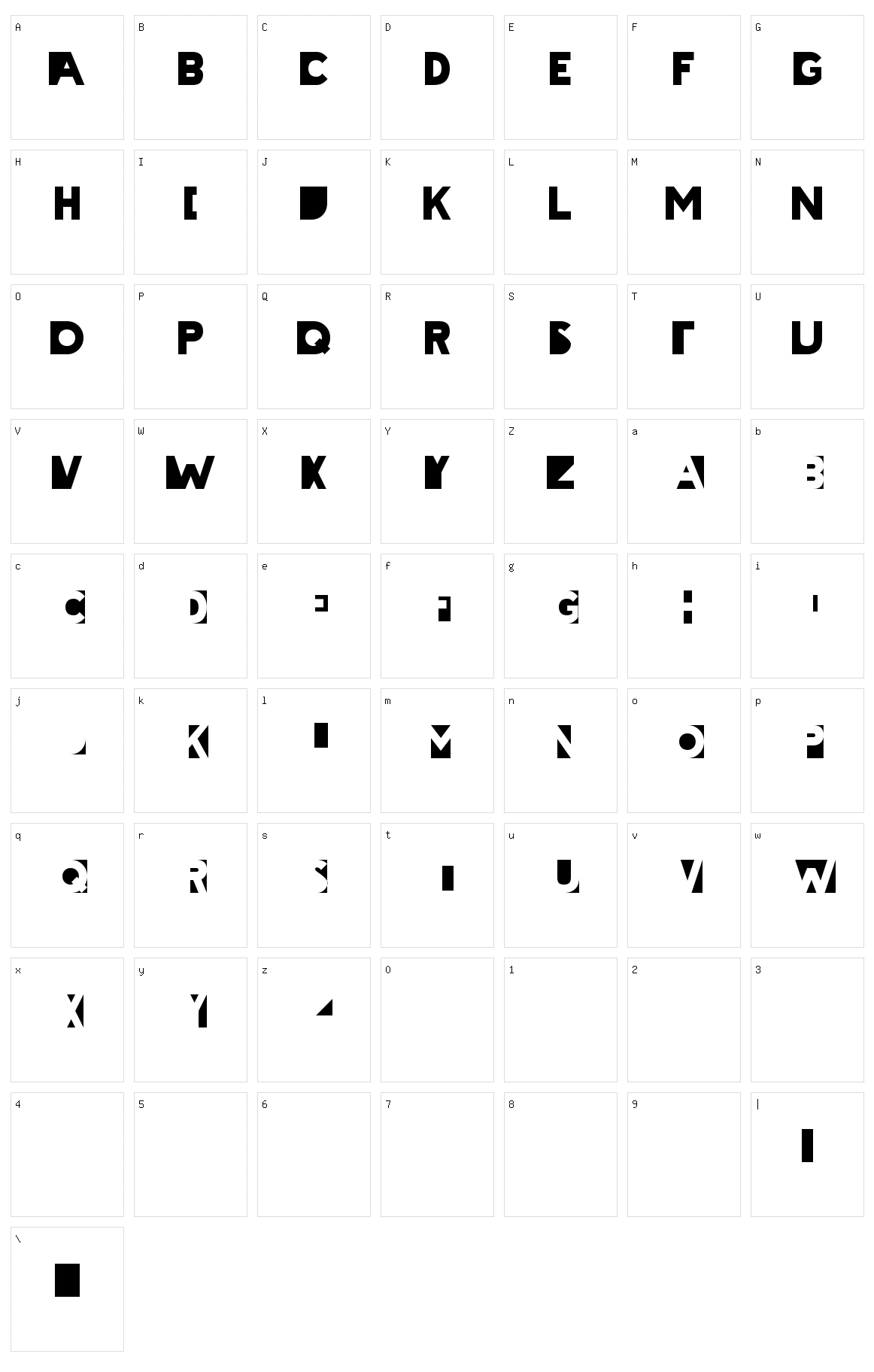
Font: Cheatin'
Created By: Matthew Welch
About the font:
To achieve the intended effect of this font you have to alternate
capital and lower case letters. It works best with words
containing an odd number of letters.
ExAmPlE
To get to the regular looking letters for the beginnings of words
there is a little trick. You have to look up the letter you want
in the table below and enter the sequence listed. For instance,
to begin a word with the letter 'A', hold down the alt key, type
0193 on the numeric keypad (not the row of numbers above the
letters), and then release the alt key. Letters that have a
straight vertical line on their left side (B, E, M, etc.) will
appear just the same using either the sequence below or the
capitalized letter. For all other letters you have to use the
alt+number sequence.
[alt+0193]lTeRnAtE
A black space character has been provided as the '\'. You can use
this between two words when the first one has an even number of
letters.
MaRk\SmItH
A half sized black space is available as the '|'. Put this on the
end of a word with an even number of letters to give it a more
finished look.